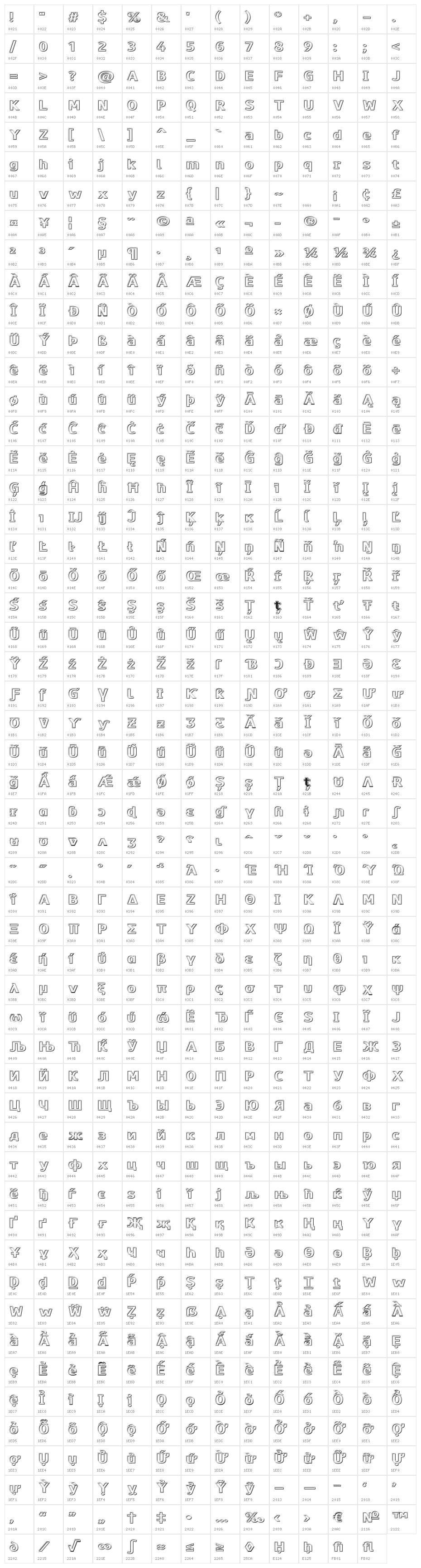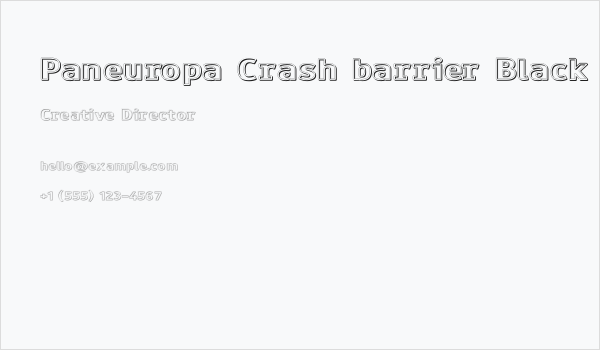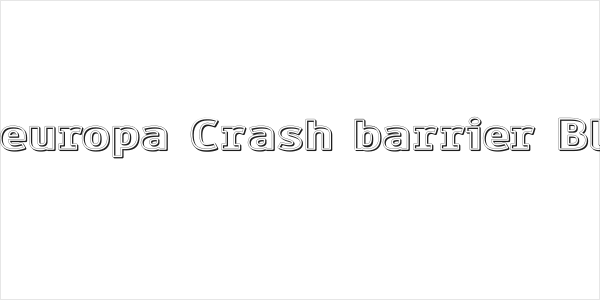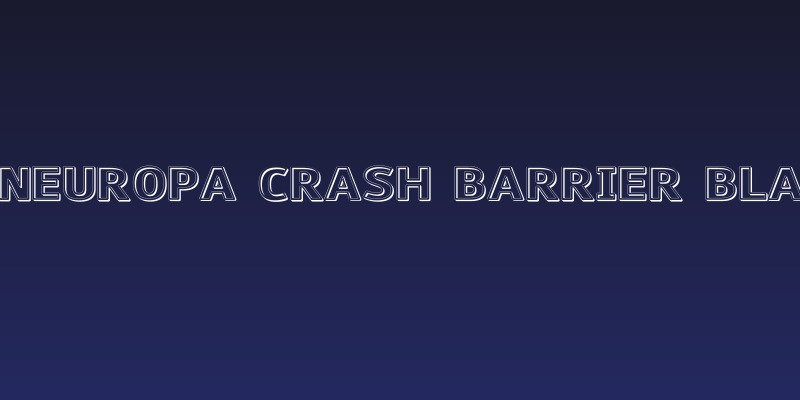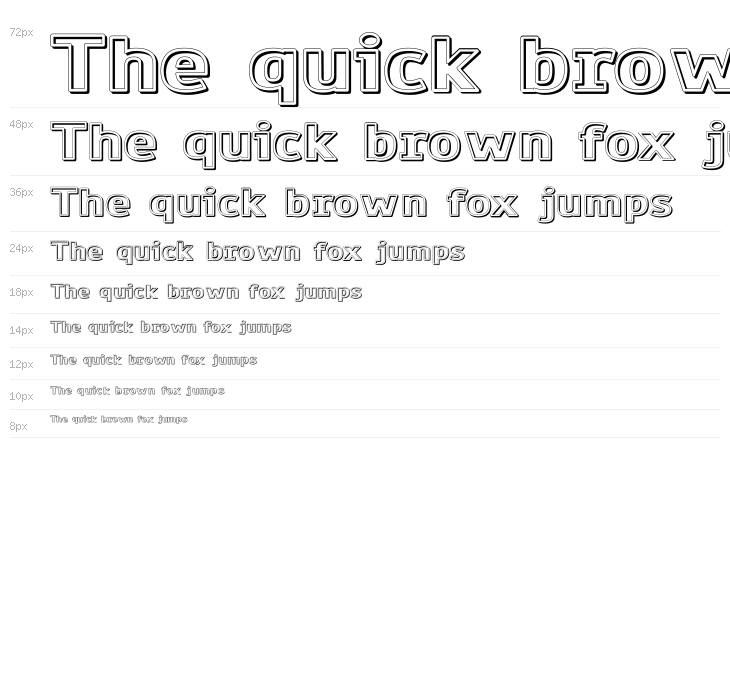
Paneuropa Crash barrier Black Font
Paneuropa Crash barrier Black Description
This font features a bold, outlined style that gives it a striking and impactful appearance. The characters are uppercase and lowercase, with a consistent thickness that enhances readability while maintaining a decorative edge. The numbers and special characters follow the same design, ensuring uniformity across all glyphs. The font's outline effect creates a sense of depth, making it suitable for designs that require a standout text element. Its clean lines and geometric shapes contribute to a modern aesthetic, while the boldness of the characters ensures they are easily legible from a distance.